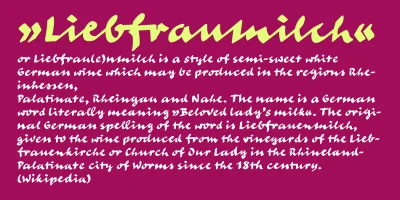
Liebfraumilch Font
The Liebfraumilch Font is perfect for wine labels, restaurant menus, invitations, and vintage-inspired branding.
This font is exciting because its delicate, handwritten script exudes elegance and nostalgia, evoking a timeless, artisanal charm.
The Liebfraumilch Font family includes Regular, Italic, Bold, and Swash variations, offering versatility for creative designs.
Transform your projects with the Liebfraumilch Font, a typeface that blends sophistication with a vintage flair. Ideal for designers seeking a touch of class, this script font shines in applications like wine packaging, wedding stationery, and upscale branding. Its flowing, calligraphy-inspired letterforms create a warm, inviting aesthetic that captivates audiences.
The Liebfraumilch Font thrives in both print and digital formats. Its intricate details enhance luxury product labels, while its readability ensures clarity in menus or website headers. Whether crafting a romantic invitation or a boutique logo, this font adds a personal, handcrafted feel. Its ability to pair with modern or classic elements makes it a versatile choice for diverse projects.
With its range of styles, the Liebfraumilch Font family supports varied design needs. From subtle italics to decorative swashes, it adapts effortlessly to create cohesive visuals. For those testing its charm, the Liebfraumilch Font allows you to explore its potential before purchasing for commercial use.